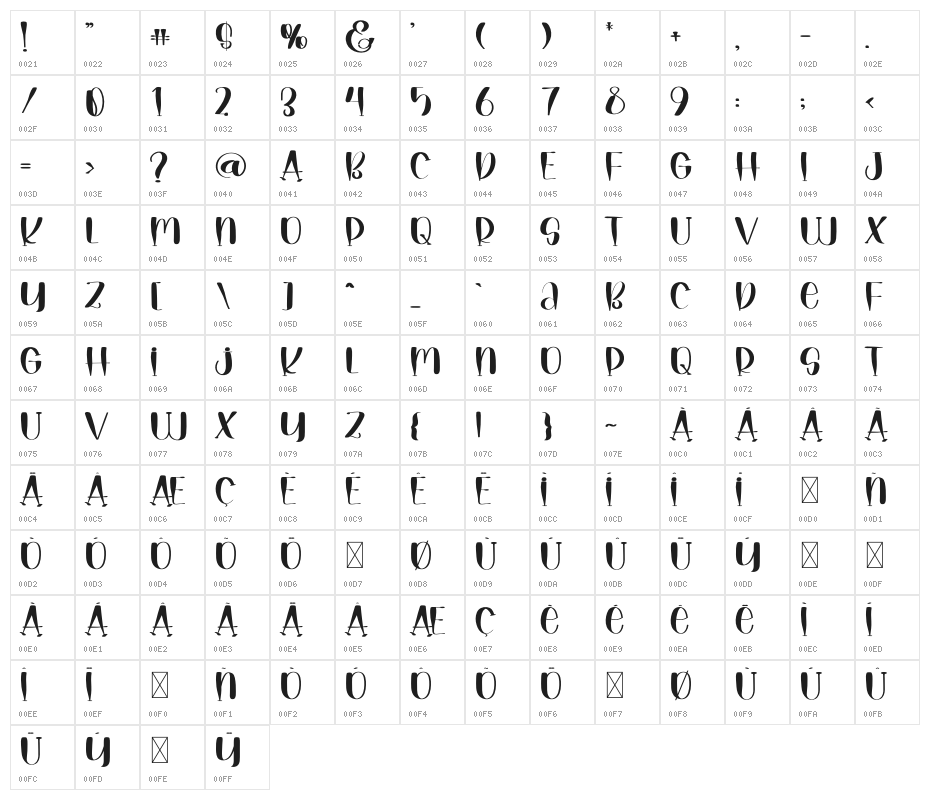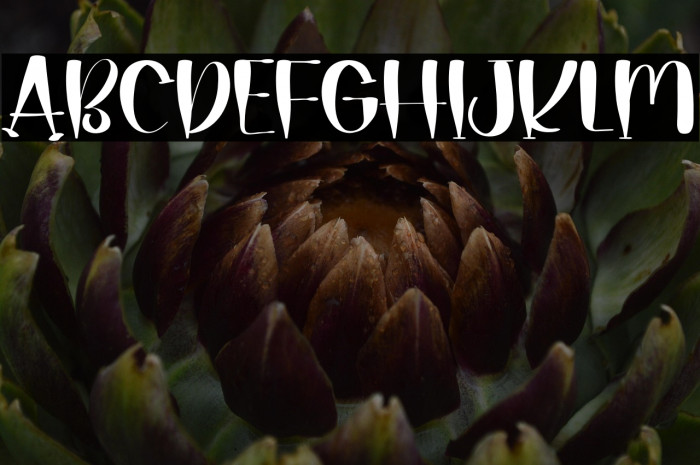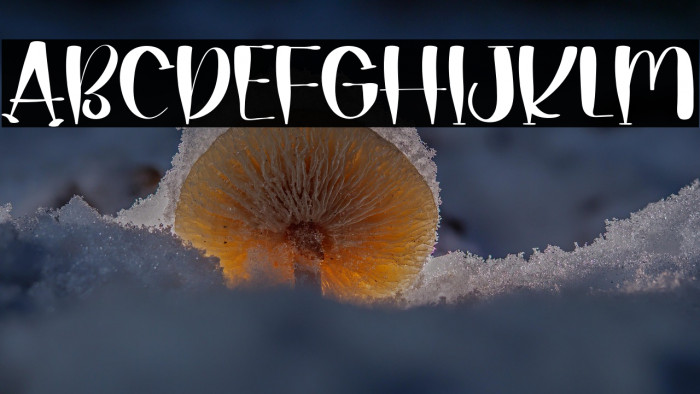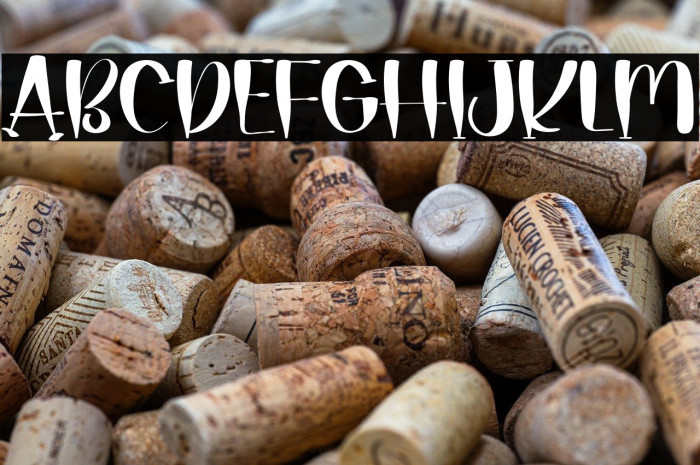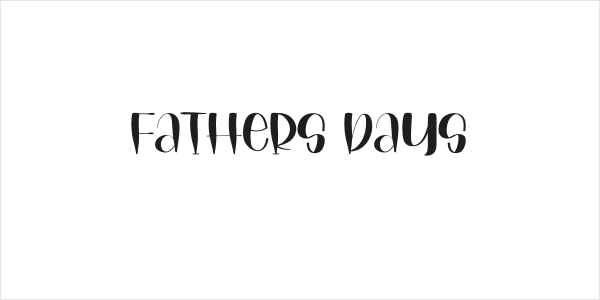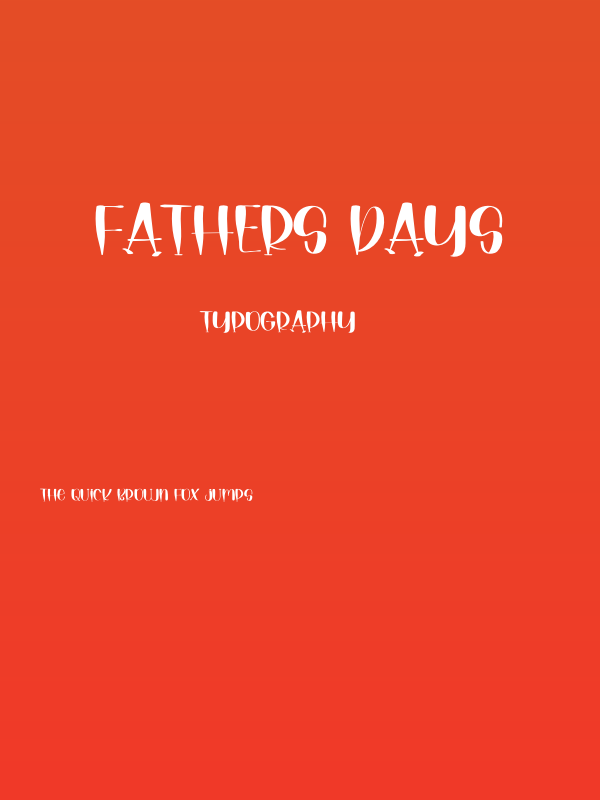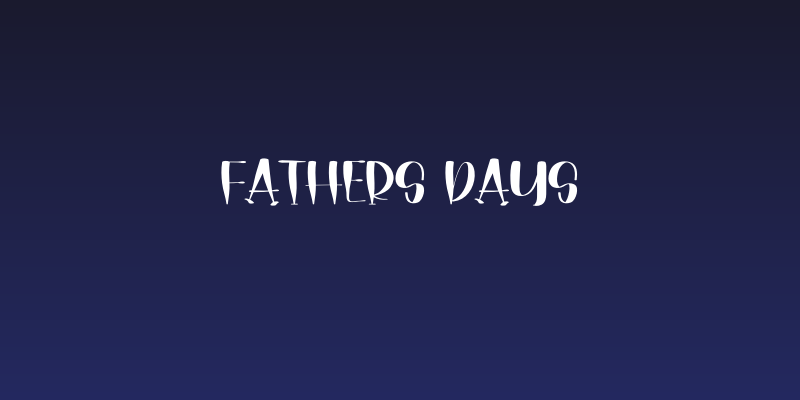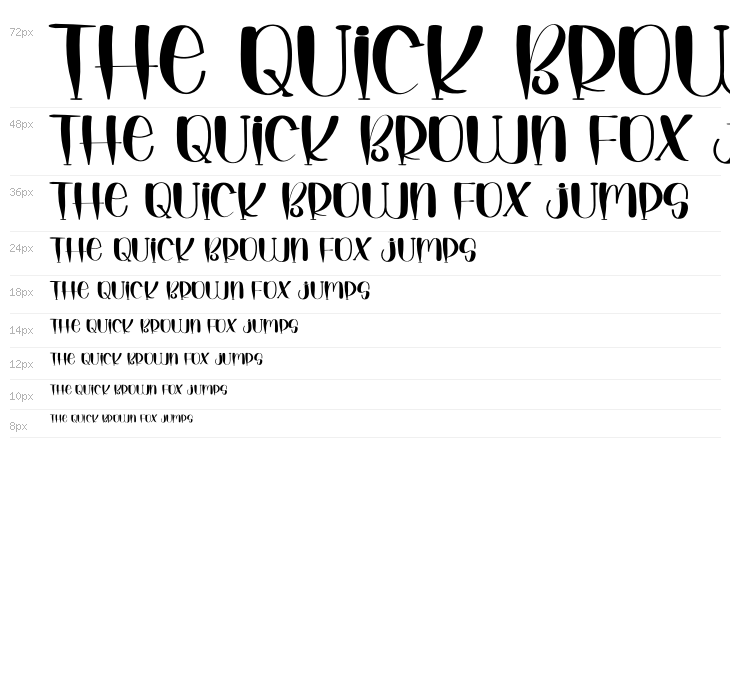
Fathers Days Font
Fathers Days Description
This font features a playful and whimsical style, characterized by its bold and flowing letterforms. The uppercase and lowercase letters share a consistent design, with exaggerated curves and varying stroke widths that add a dynamic feel. The numbers and special characters maintain this lively aesthetic, making the font suitable for creative and informal applications. The overall appearance is both modern and decorative, with a touch of elegance that can enhance various design projects.